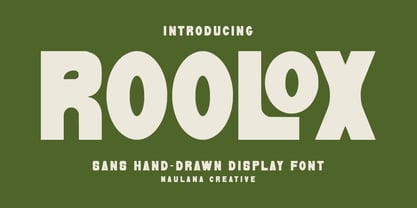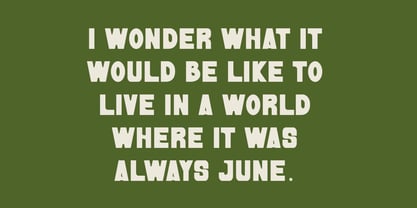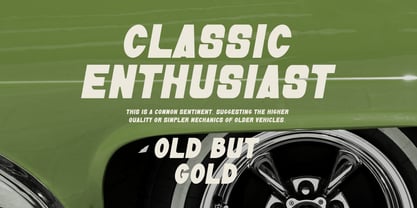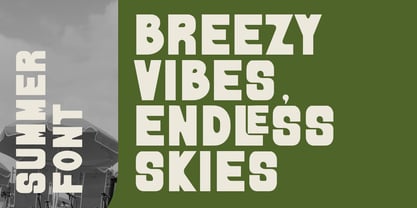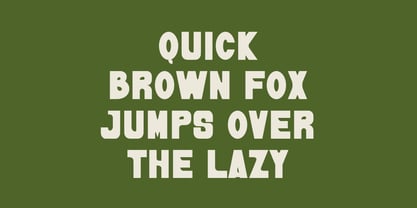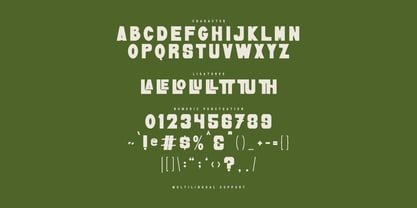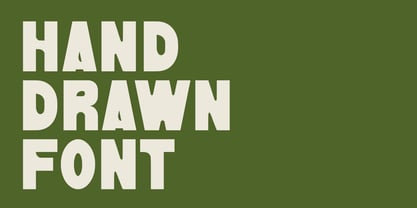
MC Roolox
par Maulana Creative
La famille de polices MC Roolox a été conçue par Gilang Maulana et publiée par Maulana Creative. MC Roolox contient 1 styles. En savoir plus sur cette famille
Roolox sans hand drawn display font. Fun character with a bit of ligatures. To give you an extra creative work. This font is good for logo design, Social media, Movie Titles, Books Titles, a short text even a long text letter and good for your secondary text font with script or serif. Make a stunning work with Roolox font.
Concepteurs: Gilang Maulana
Fonderie: Maulana Creative